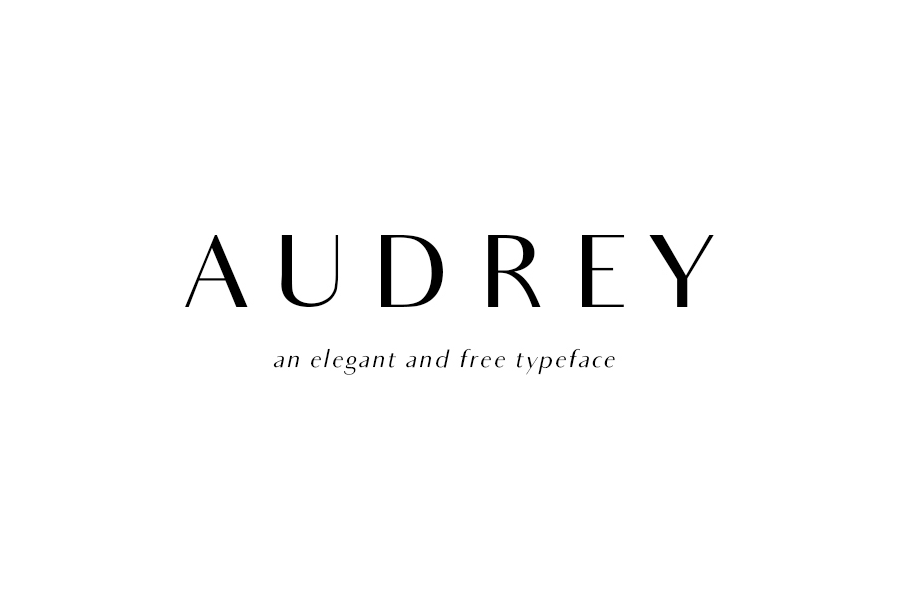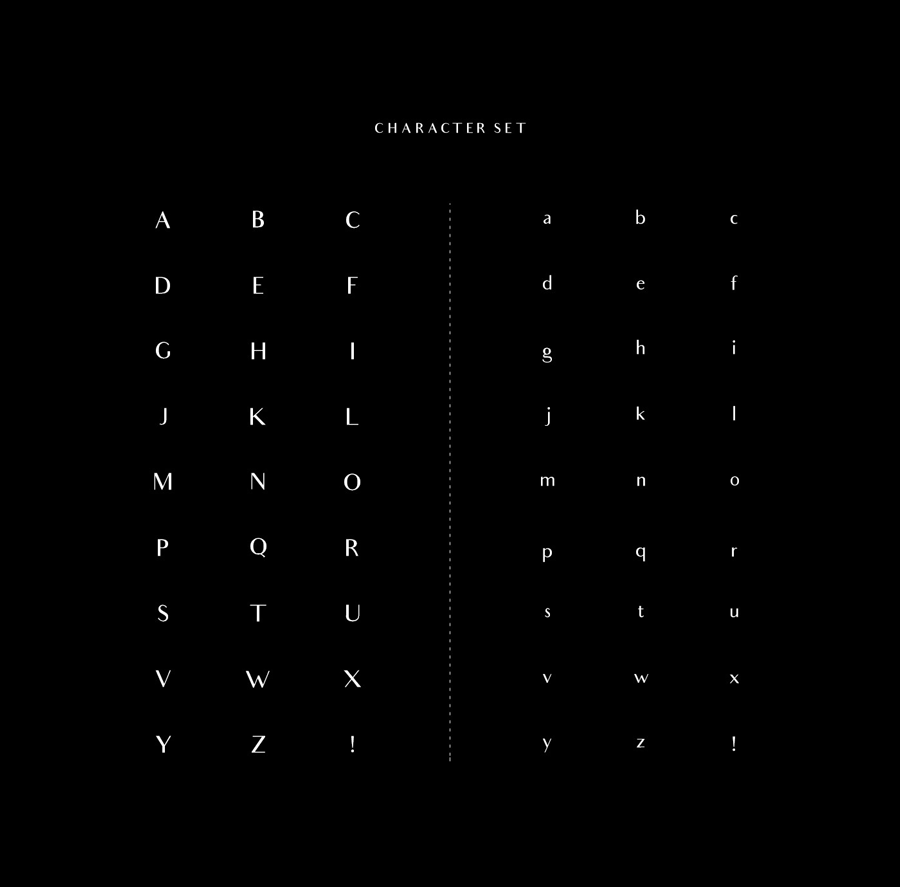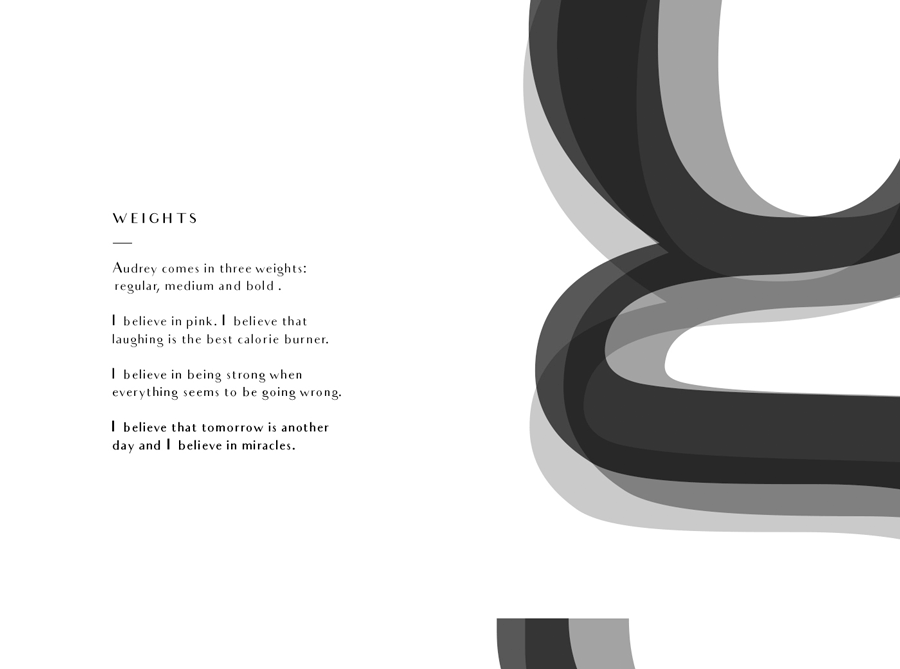
Audrey is an elegant font family that you can download for free. It combines curvy geometry and straight lines to create the contrasty beautiful letters. Audrey comes with 3 font weights from Normal to Bold, and each accompany with oblique version. Because of its high legibility, this font is suitable for both headline and body text.
- Styles: 6 (Normal, Medium and Bold + Obliques )
- Category: Glamour